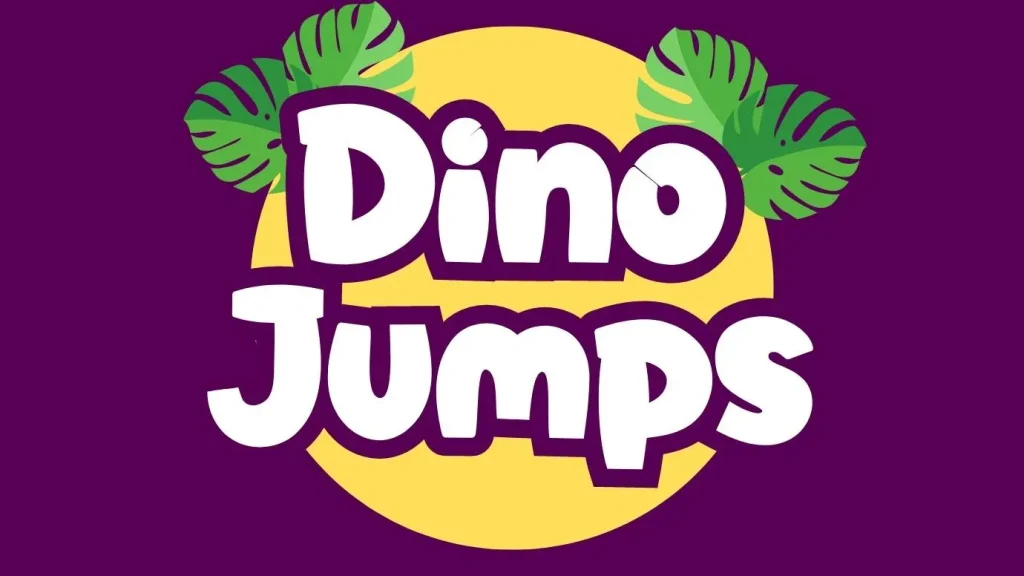
Numerous designs are available in this beautiful typeface, which you can use for a range of different purposes. Dino Jump Font text style is interesting since it offers your projects a more elegant and beautiful appearance.
These typefaces feature case-sensitive digits, divisions, constants, and respondents. Different styles are available in both thick and thin versions to produce a range of attractive layouts.
It can also make a very well combination pair with coves font. The typeface may be used to create exciting designs, books, company titles, and logos.
The font is suitable for video games, visual editing, and logo designs, among other things. This type of textual style may be used to conduct an attractive, in-depth analysis of your content and strategy.
This text style is used by visual developers because of its attractive appearance. The text style is appropriate for logo designs and real-world movie titles. Additionally, it is helpful for game planning.
You can use this text style to create, banners, gift cards, and covers for digital books. For website designing, blogging, and many other related planning purposes, this stunning text-based style is ideal.
What kind of Dino Jump Font is?
This gorgeous typeface belongs in the fancy typeface group. It’s suitable for body text and may be used for a variety of tasks.